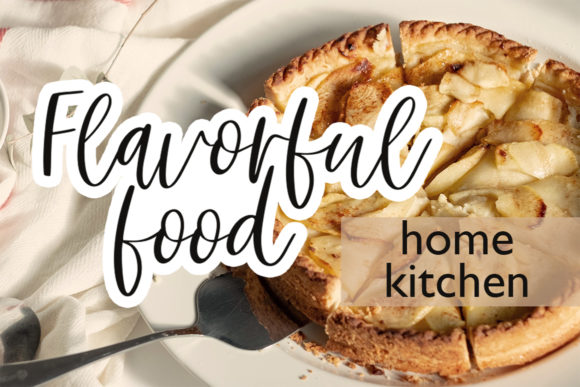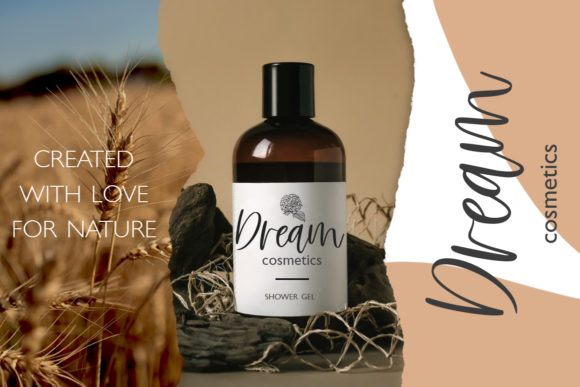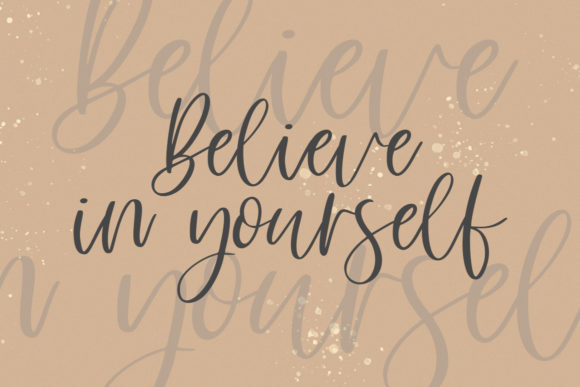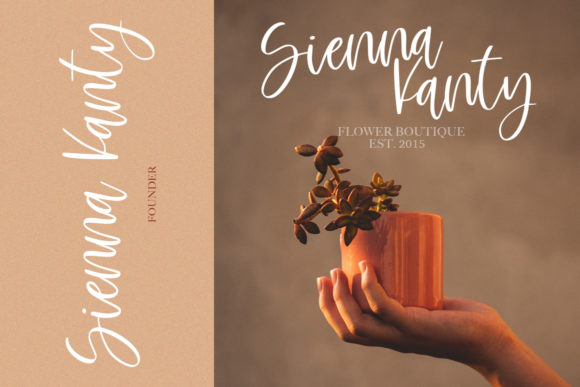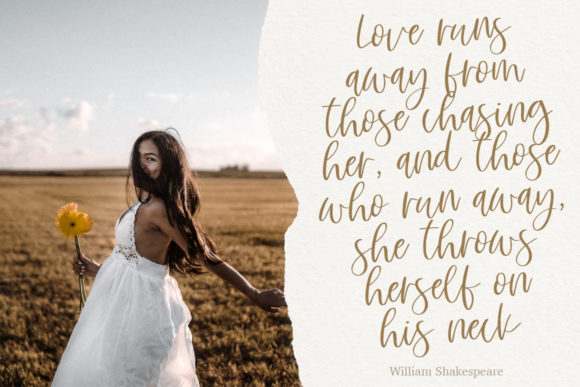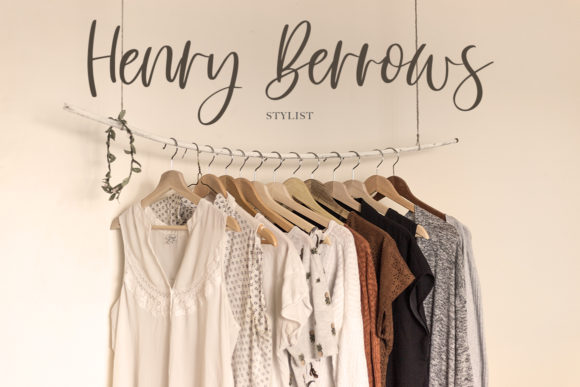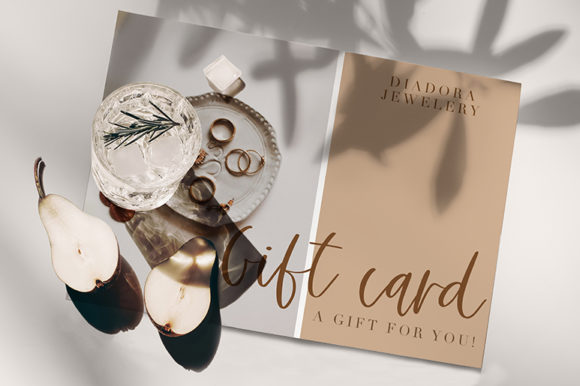
Script Fonts Pamflet Font 0 180 FacebookTwitterPinterestWhatsApp 1 of 10 Pamflet Font Poster 2... Pamflet Font Poster 3... Pamflet Font Poster 4... Pamflet Font Poster 5... Pamflet Font Poster 6... Pamflet Font Poster 7... Pamflet Font Poster 8... Pamflet Font Poster 9... Pamflet Font Poster 10... About Pamflet Font Pamflet is a stylish and incredibly elegant script font. It looks stunning on wedding invitations, thank you cards, quotes, greeting cards, logos, business cards and every other design which needs a handwritten touch. DOWNLOAD NOW